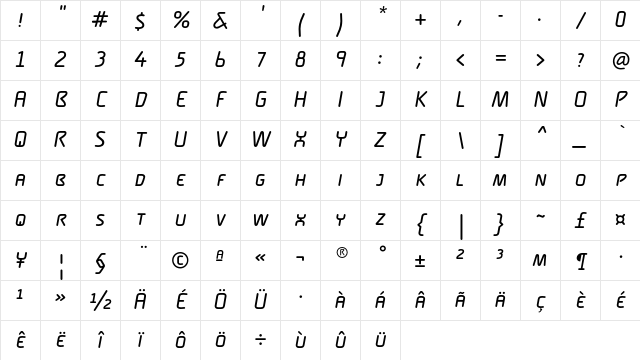
AlegaGreek-NormalSCItalic is a composed and adaptable typeface that performs quietly and consistently across a wide range of design contexts. The slanted form adds forward momentum and visual energy.
Pro Tip: Use AlegaGreek-NormalSCItalic for emphasis, pull quotes, and subheadings where its slanted energy can add rhythm to the layout.